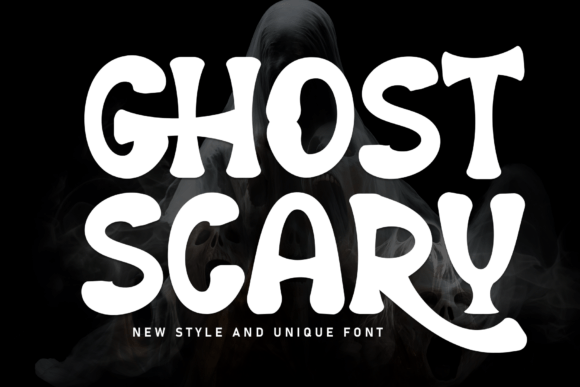
Introducing Ghost Scary Font: The Perfect Blend of Modern Simplicity and Playful Charm
In the world of typography, fonts play a crucial role in conveying the tone and personality of a brand or design. When it comes to creating a lasting impression, the right font can make all the difference. This is where Ghost Scary Font comes in – a casual display font that seamlessly blends modern simplicity with a playful, approachable vibe. In this article, we’ll dive into the features and benefits of Ghost Scary Font, and explore how it can elevate your design projects to the next level.
Design Characteristics of Ghost Scary Font
Ghost Scary Font is characterized by its clean shapes, soft edges, and well-balanced letterforms. These design elements work together to create a font that is not only visually appealing but also highly legible. The clean shapes and soft edges give the font a friendly and approachable feel, while the well-balanced letterforms ensure that the text remains clear and easy to read.
One of the standout features of Ghost Scary Font is its unique blend of modern simplicity and playfulness. The font’s design is not too minimalist, nor is it too ornate – it strikes the perfect balance between the two. This makes it an ideal choice for designers who want to create a fresh and friendly look without sacrificing clarity and style.
Use Cases for Ghost Scary Font
Ghost Scary Font is a versatile font that can be used in a variety of design projects. Its casual and approachable vibe makes it perfect for:
- Posters: Add a touch of playfulness to your posters with Ghost Scary Font. Its clean and simple design ensures that your message gets across clearly, while its friendly vibe adds a creative twist.
- Branding: Create a lasting impression with Ghost Scary Font. Its modern simplicity and playful charm make it an excellent choice for branding projects, from logos to business cards.
- Packaging: Make your packaging stand out with Ghost Scary Font. Its eye-catching appeal and readability ensure that your product gets noticed on store shelves.
- Social Media Graphics: Elevate your social media graphics with Ghost Scary Font. Its friendly and approachable vibe makes it perfect for creating engaging and shareable content.
The Benefits of Using Ghost Scary Font
So, why choose Ghost Scary Font for your design projects? Here are just a few benefits of using this versatile font:
- Readability: Ghost Scary Font is designed to be highly legible, making it perfect for projects where clarity is key.
- Personality: The font’s playful and approachable vibe adds a touch of personality to any design project.
- Versatility: Ghost Scary Font can be used in a variety of design projects, from posters to social media graphics.
- Eye-catching appeal: The font’s unique design ensures that it stands out from the crowd, making it perfect for projects where you want to make a lasting impression.
Tips for Using Ghost Scary Font Effectively
To get the most out of Ghost Scary Font, here are a few tips to keep in mind:
- Use it as a display font: Ghost Scary Font is designed to be used as a display font, so use it to add a touch of personality to your headlines and titles.
- Experiment with colors: The font’s clean and simple design makes it easy to pair with a variety of colors. Experiment with different color combinations to find the one that works best for your project.
- Don’t be afraid to mix and match: Ghost Scary Font can be paired with a variety of other fonts to create a unique look. Don’t be afraid to experiment with different font combinations to find the one that works best for your project.
In conclusion, Ghost Scary Font is a versatile and eye-catching font that is perfect for designers who want to add a touch of modern simplicity and playfulness to their design projects. Its clean shapes, soft edges, and well-balanced letterforms make it highly legible and visually appealing, while its friendly and approachable vibe adds a touch of personality to any project. Whether you’re working on a poster, branding project, packaging, or social media graphics, Ghost Scary Font is an excellent choice. So why not give it a try and see how it can elevate your design projects to the next level?